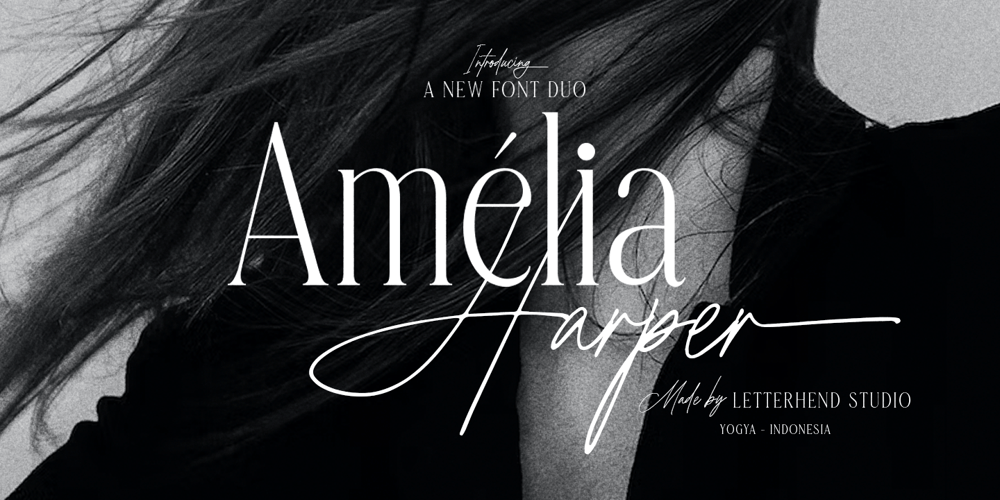
Amelia Harper Font Family was designed by Hendry Juanda and published by Letterhend. Amelia Harper contains 2 styles and family package options. Amelia Harper , a new font duo where the elegance of a serif font intertwines flawlessly with the beauty of a handwritten script. This font duo is carefully crafted to bring together the classic charm of serifs with the contemporary edge of modern scripts.Features : Uppercase & lowercase Numbers and punctuation Alternates & Ligatures Multilingual PUA encoded